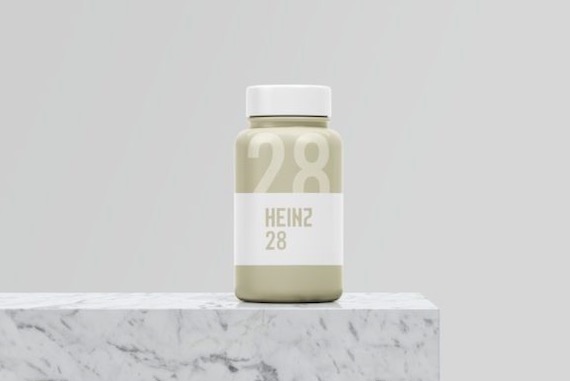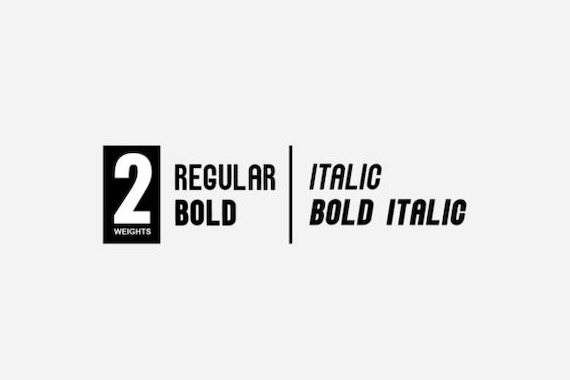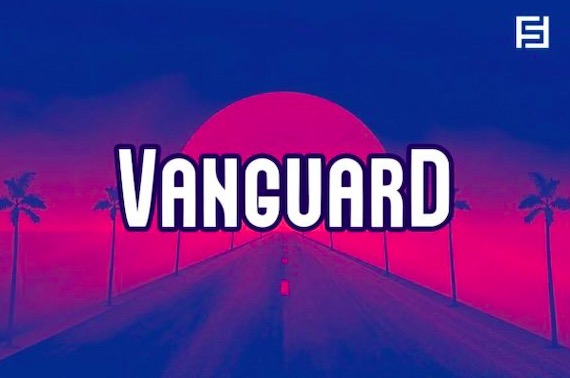
Introducing Vanguard typeface. This is an elegant display typeface, it has a sharp & casual looking display look, that will truly inspire your works. Vanguard is created and shared by Designova. You can use it for your designs and explore its endless possibilities.
The Vanguard Display Font